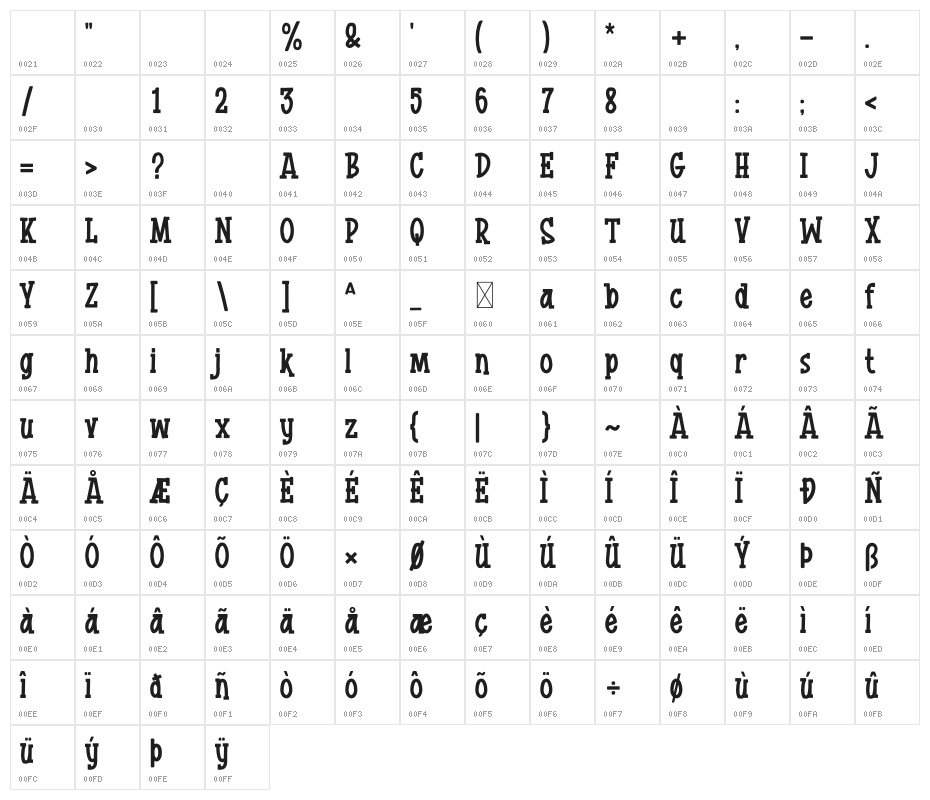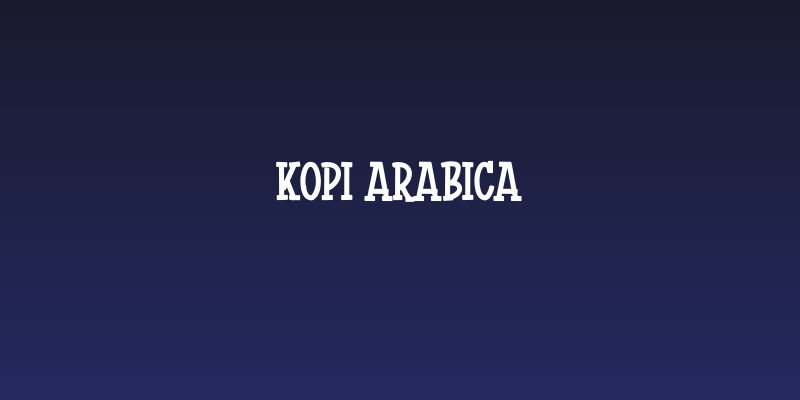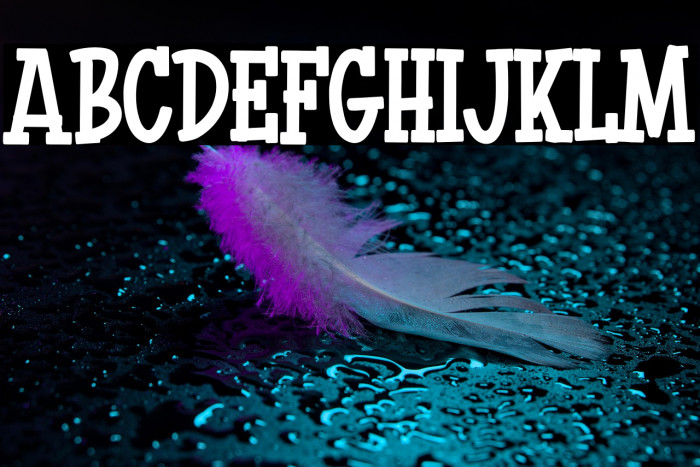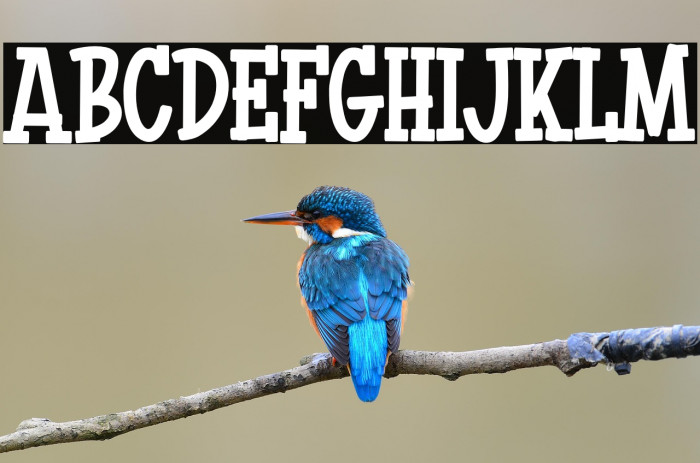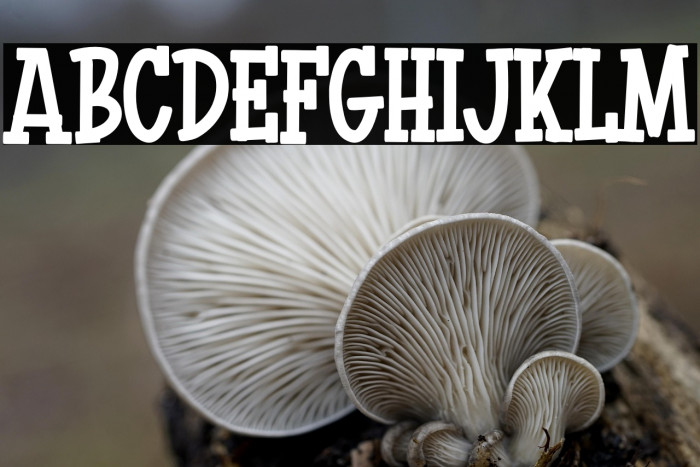
Kopi Arabica Font
Kopi Arabica Description
This font features a bold and playful design with a distinct vintage flair. The characters are slightly condensed, giving it a compact appearance while maintaining readability. The strokes are thick and consistent, providing a strong presence on the page. The uppercase letters are tall and commanding, while the lowercase letters have a quirky, hand-drawn feel. The numbers are bold and easily distinguishable, and the special characters add a touch of whimsy. This font is perfect for projects that require a fun and retro aesthetic.
| Proposed Projects | Ideal for retro-themed posters, playful branding, children's book covers, and eye-catching headlines. |